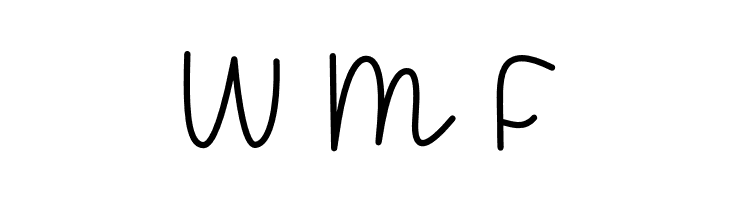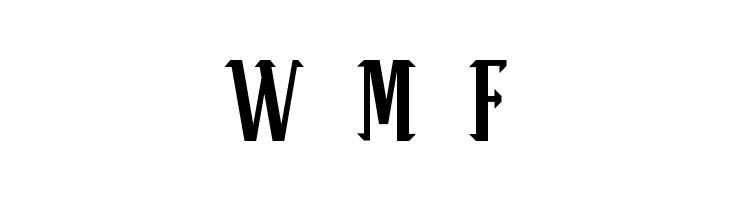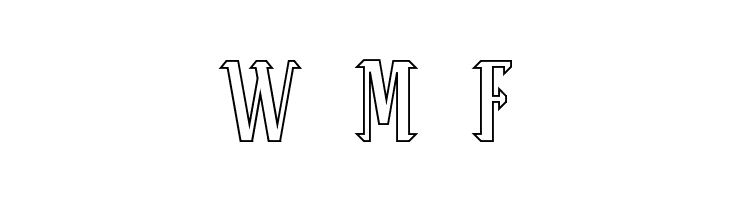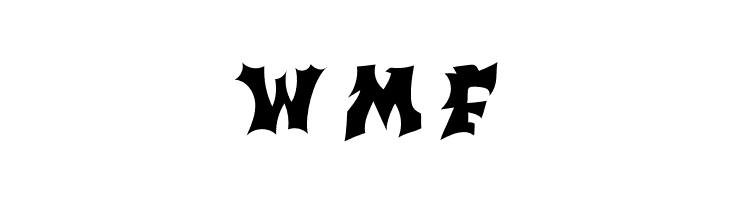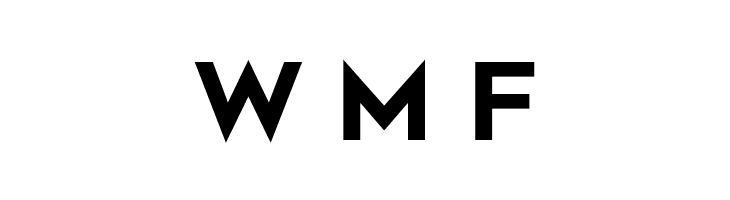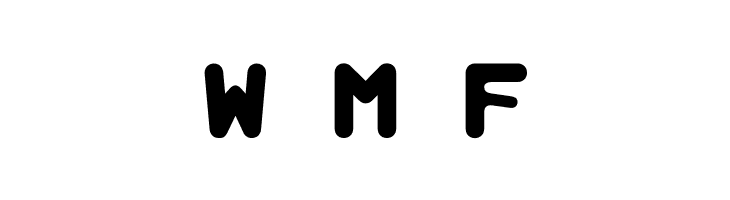
A modern, bold sans-serif font with geometric structure and excellent readability.
A bold, textured font with a vintage, hand-crafted appearance.
A playful handwritten font with smooth, rounded edges and consistent height.
A bold, rounded font with a modern and playful style.
A bold, high-contrast serif font with vintage elegance and modern flair.
A bold, outlined serif font with a decorative and dimensional style.
A bold, geometric font with sharp angles and high contrast strokes.
A bold, geometric font with angular edges and a modern, digital aesthetic.
A modern, light sans-serif font with excellent readability and clean lines.
A bold, Gothic-inspired font with sharp, angular edges and dramatic serifs.